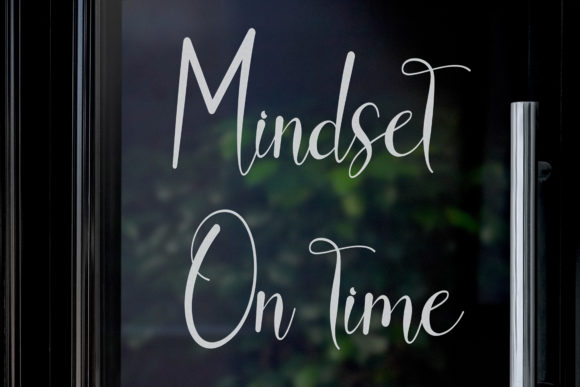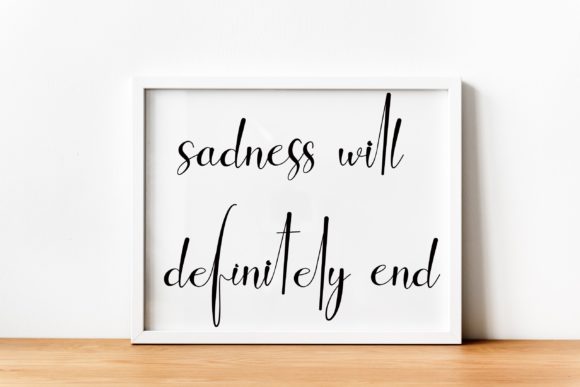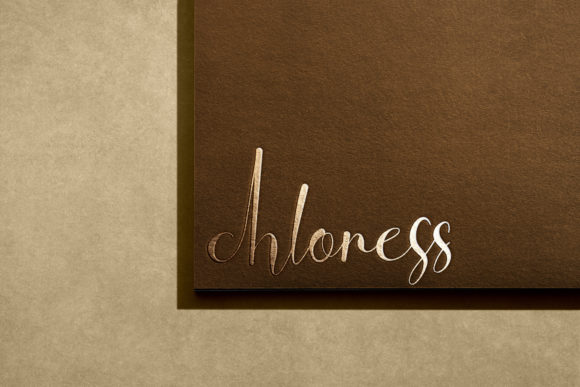
The Elusive Font: A Designer’s Quest for the Perfect Handwritten Style
I’ll never forget the countless hours I spent searching for the perfect font for a client’s luxury brand project. The design brief called for a stylish, handwritten font that would evoke a sense of high-end sophistication. I scoured the internet, tried out dozens of fonts, but none seemed to fit the bill. That was until I stumbled upon the Ghostship Font ✨. Its unique feel and stunning impact immediately caught my attention, and I knew I had found the one.
A Closer Look: What Makes Ghostship Font So Special?
Ghostship is a stylish handwritten font that adds a luxury spark to any design project. Its unique feel and stunning impact make it perfect for designers, crafters, and creative hobbyists looking to elevate their designs. Here are some of the things I love about Ghostship Font:
- ✨ Unique and stylish: Ghostship Font has a distinct personality that sets it apart from other handwritten fonts.
- ✅ PUA encoded: This means you can access all the amazing glyphs and ligatures with ease, making it simple to create stunning designs.
- 💫 Luxury feel: Ghostship Font is perfect for high-end branding, packaging, and advertising projects.
While Ghostship Font is an amazing addition to any design project, there are a few quirks to be aware of:
- ⚠️ Limited use cases: Due to its luxurious feel, Ghostship Font may not be suitable for more casual or playful projects.
- 🤔 Requires some experimentation: To get the most out of Ghostship Font, you may need to experiment with different OpenType features and glyphs.
The Story Behind Ghostship Font
Ghostship Font was designed by a team of typographers who wanted to create a unique and luxurious handwritten font. Inspired by vintage ship logs and elegant script fonts, Ghostship Font is the perfect blend of classic and modern design.
- Q: What is Ghostship Font?
- A: Ghostship Font is a stylish handwritten font with a unique feel and stunning impact.
- Q: Is Ghostship Font PUA encoded?
- A: Yes, Ghostship Font is PUA encoded, making it easy to access all the amazing glyphs and ligatures.